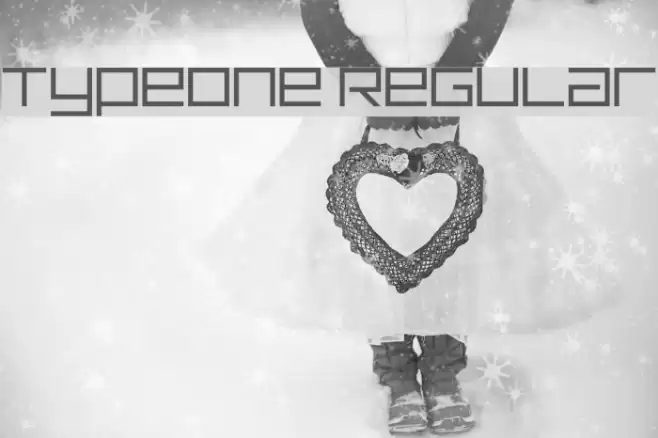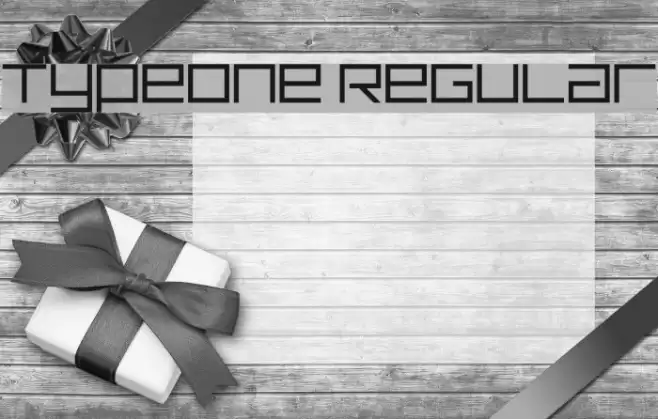
TypeOne Regular Font
TypeOne Regular Description
This font features a geometric and modern design with a distinct blocky appearance. Each character is crafted with straight lines and sharp angles, giving it a futuristic and digital feel. The uppercase and lowercase letters maintain a consistent height, contributing to a uniform look. The numerals and special characters follow the same geometric style, ensuring a cohesive appearance across all glyphs. The font's structure is clean and minimalistic, making it suitable for projects that require a contemporary and tech-savvy aesthetic.
A geometric, modern font with a blocky, digital appearance from Uncategorized fonts.
- Proposed Projects: Ideal for tech branding, digital interfaces, video game design, and futuristic posters.
- Use Case: Logos, Headlines, Digital Interfaces